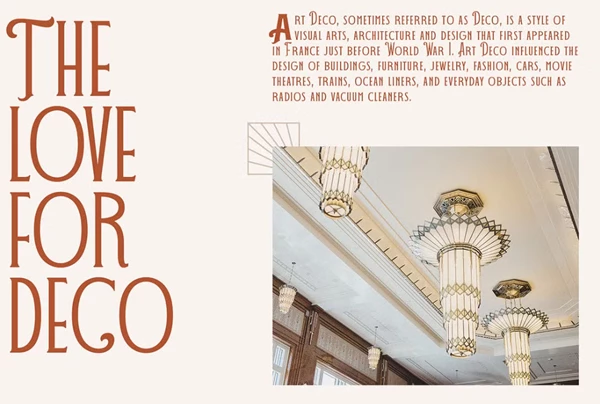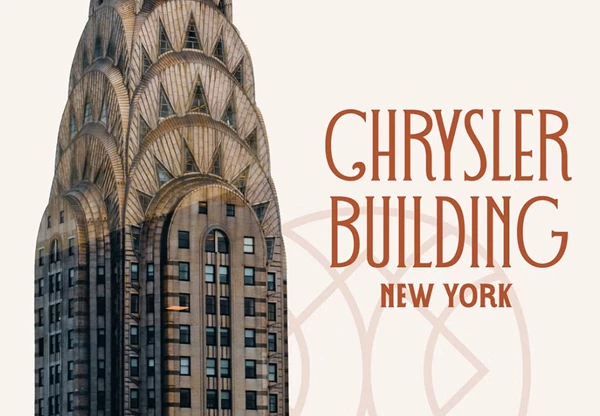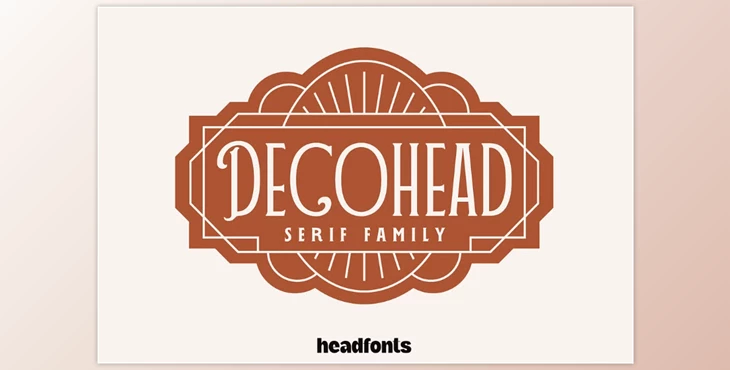
DECOHEAD Serif Elegant Art Deco Font:
Fancy your projects with this beautiful, Deco-inspired font that will easily add to all your endeavors. DECOHEAD Serif takes the clean, modern finish of a serif and incorporates a barely there, decorative addition to make this font look rich and engaging.
Available in three weights (Light, Regular, and Bold) with capital and small caps, supports basic Latin as well as numbers and alts. This is a necessary go-to for any glamorous, decorative project in need of a stamping, timeless font rich with embellishments.
Enjoy the sumptuousness and let this derivative play with your creativity.
- DECOHEAD Light
- DECOHEAD Regular
- DECOHEAD Bold